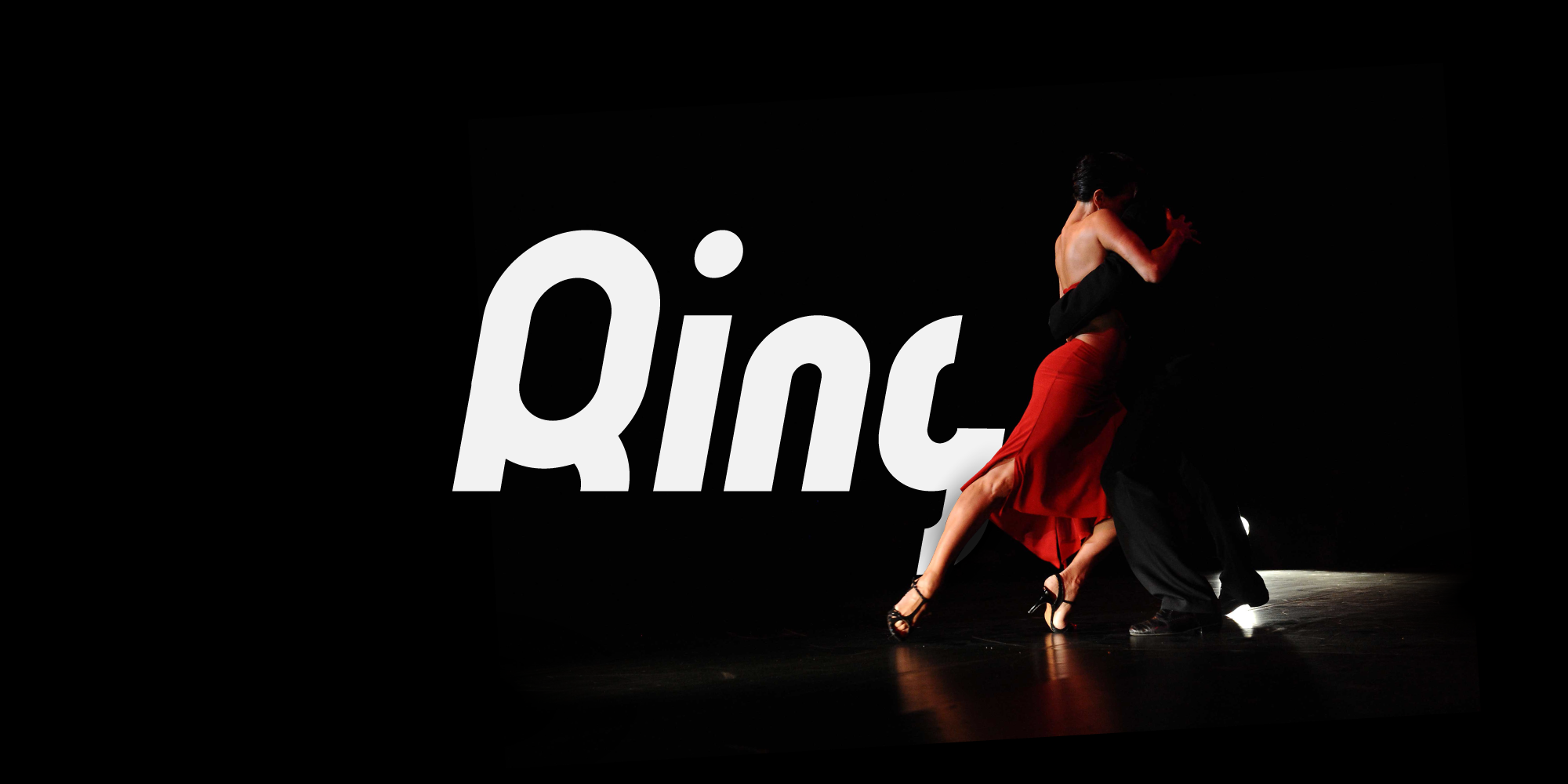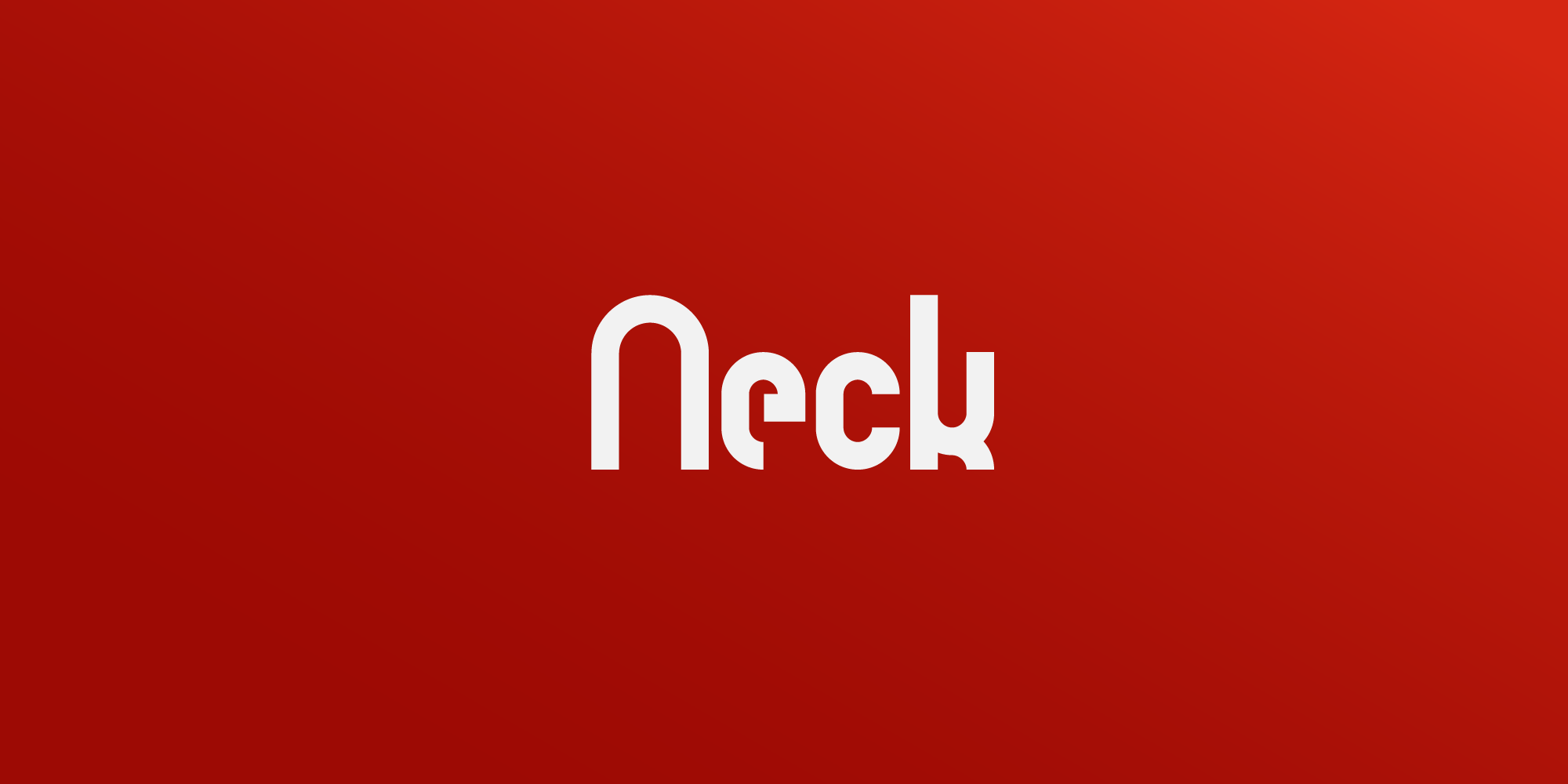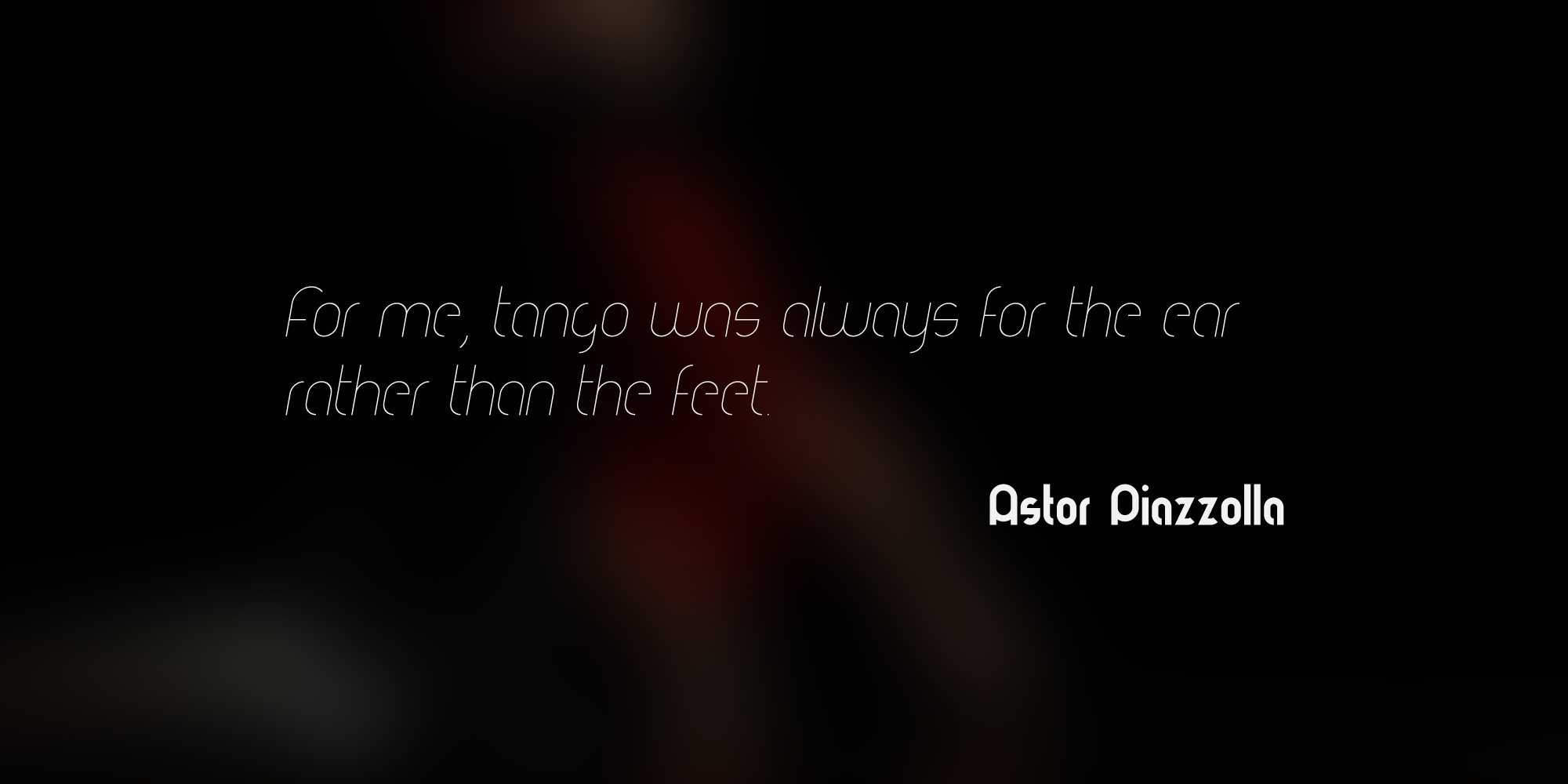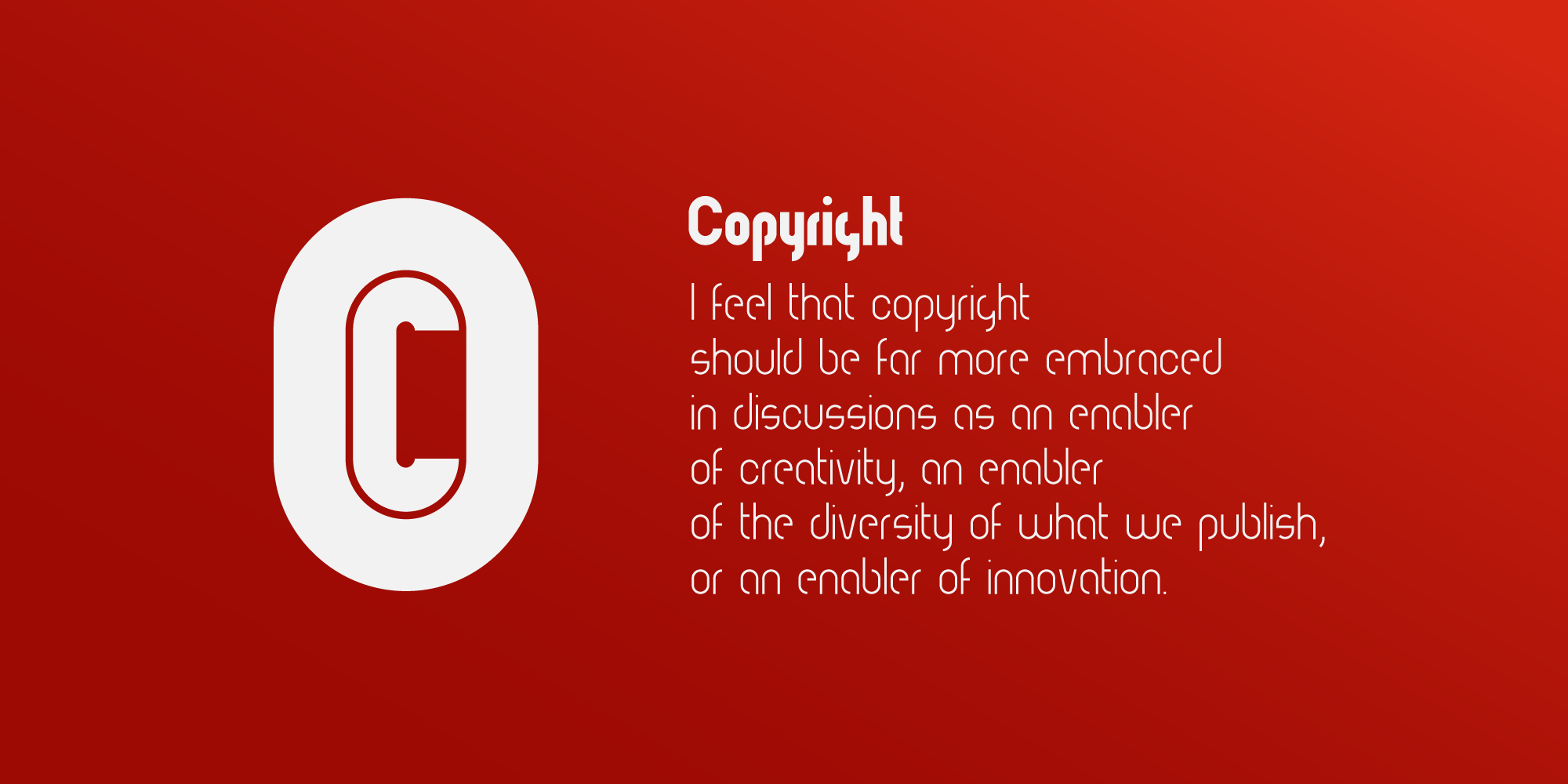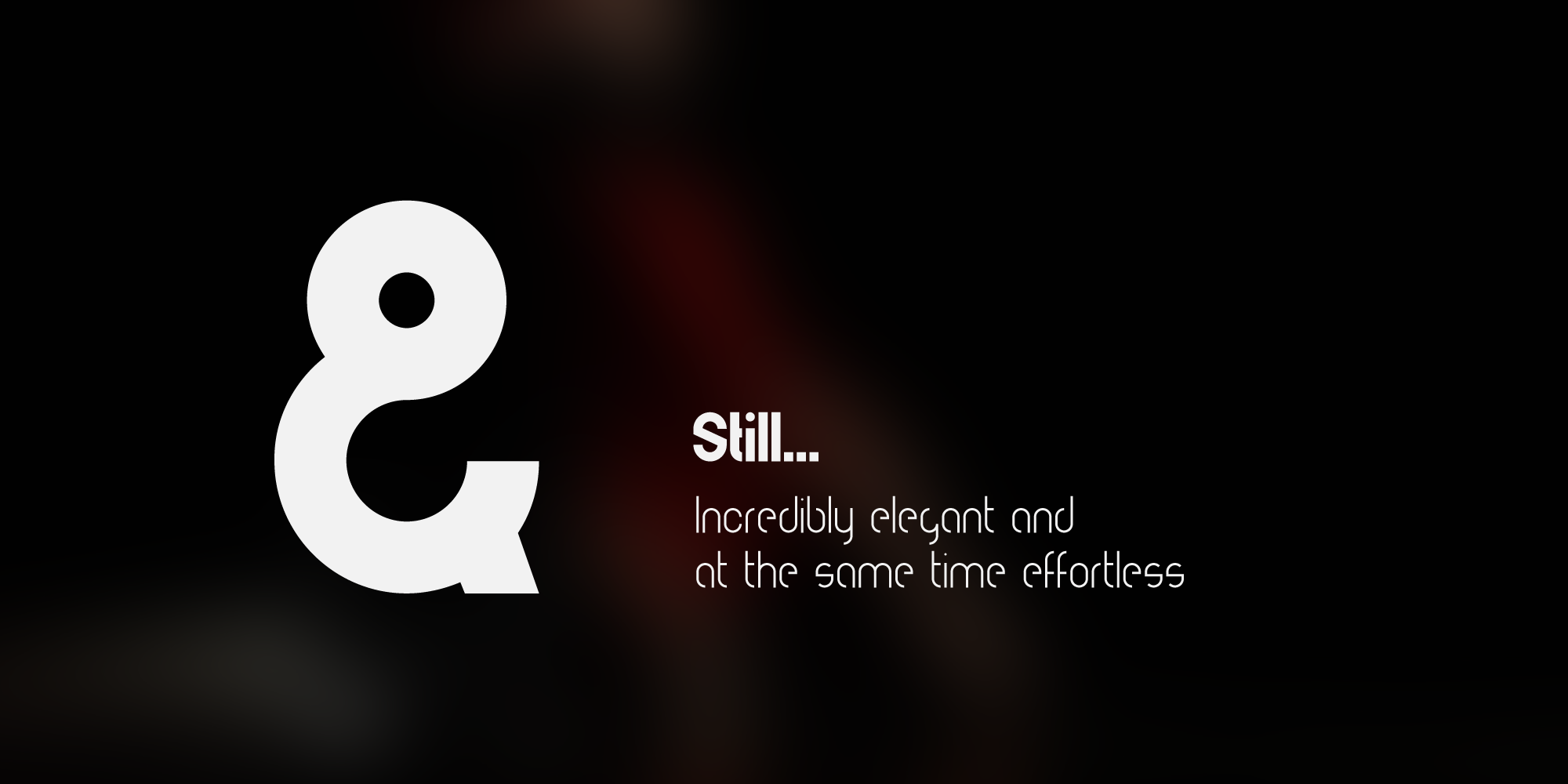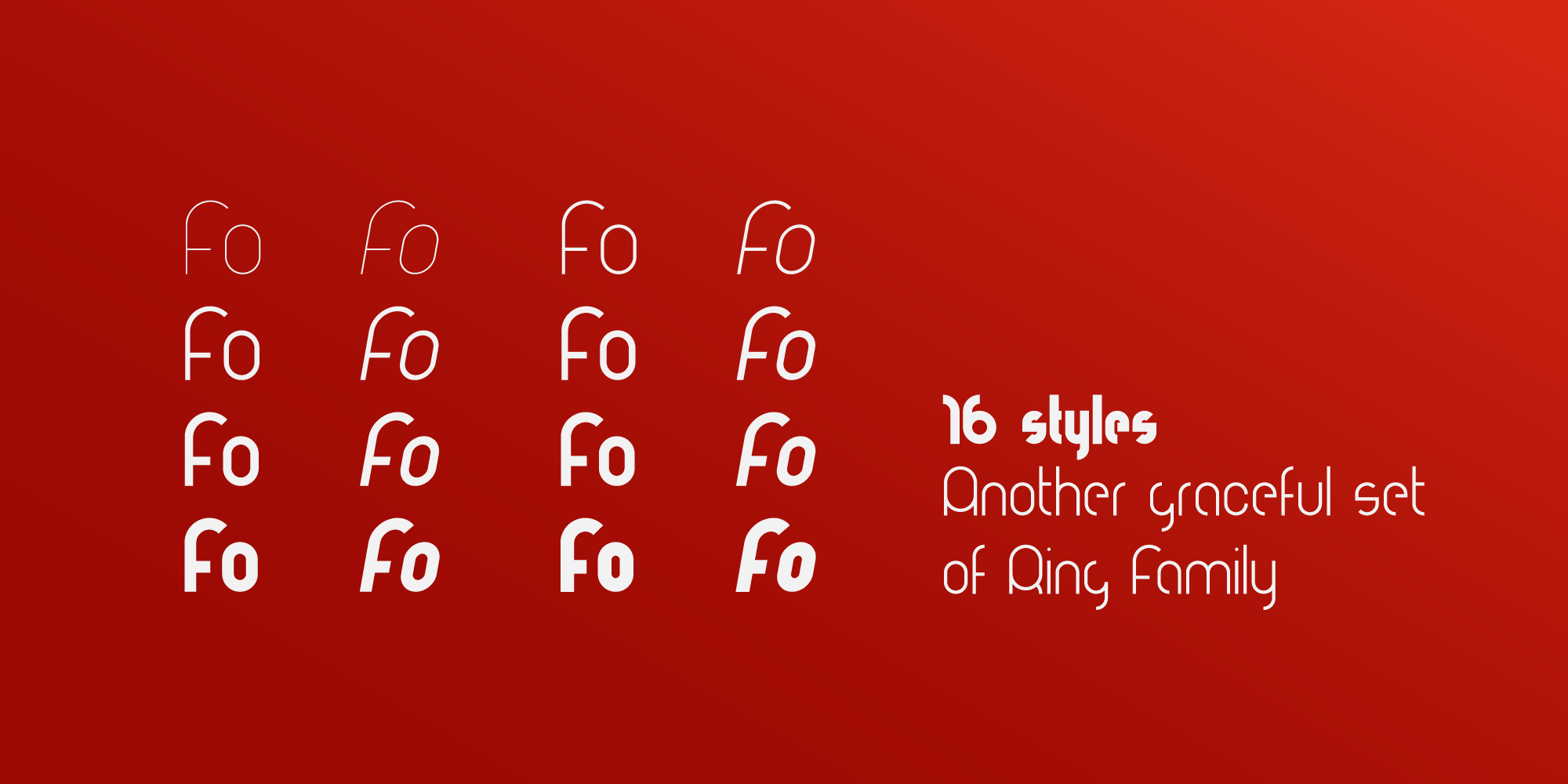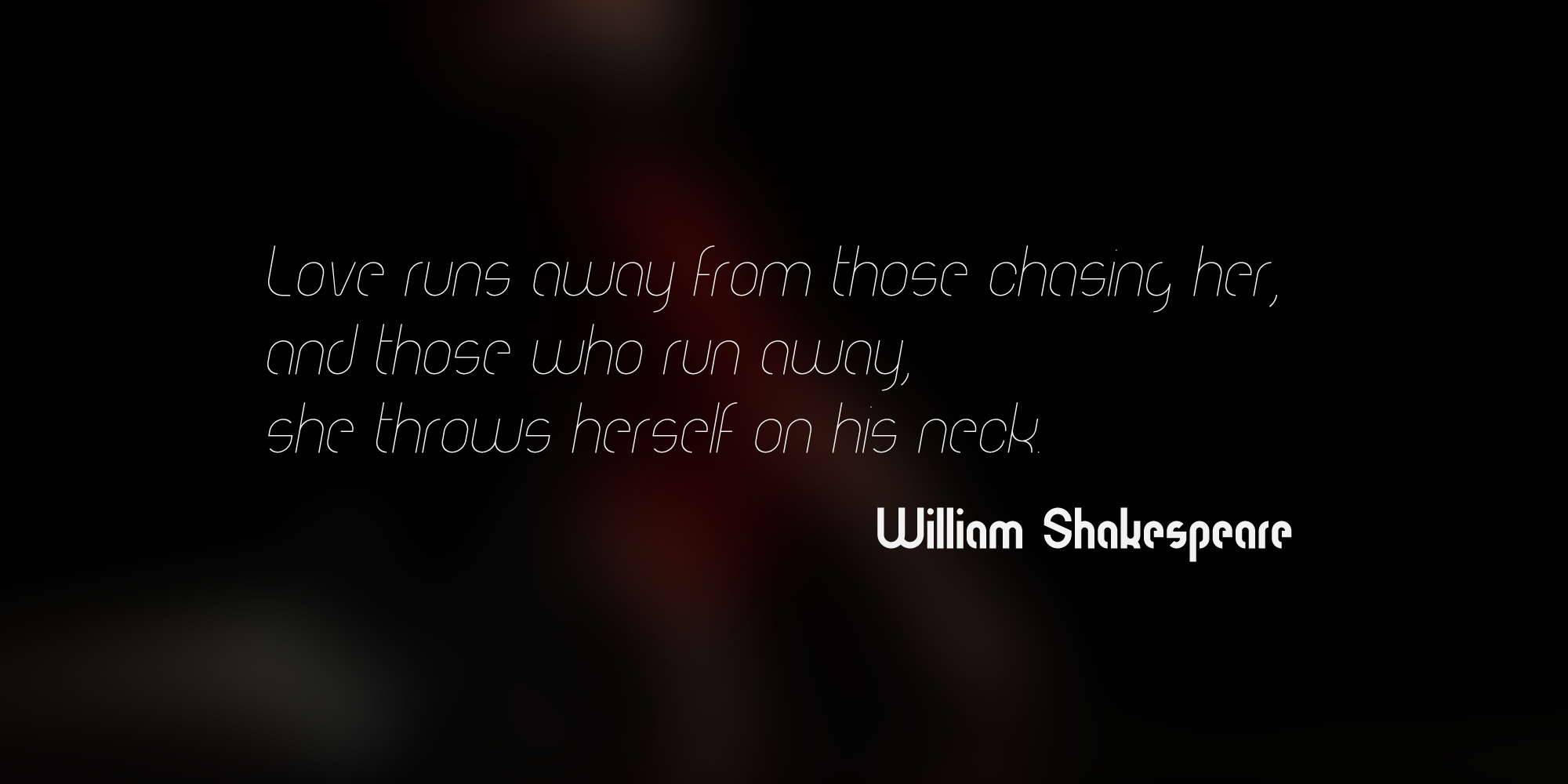
Ring Neck incredibly elegant and at the same time effortless. Another graceful set of Ring font family!
Introducing Ring Neck is a condensed sans serif which has styles from thin to black to make your design more variative and unique. Good for bold branding, titling and headline who has come to be seriously and fun. This typeface can be so serious, fun, and bold it depends on for what purpose.
Ring Neck like an other fonts of Ring family is still ready to meet the challenges of everyday life.